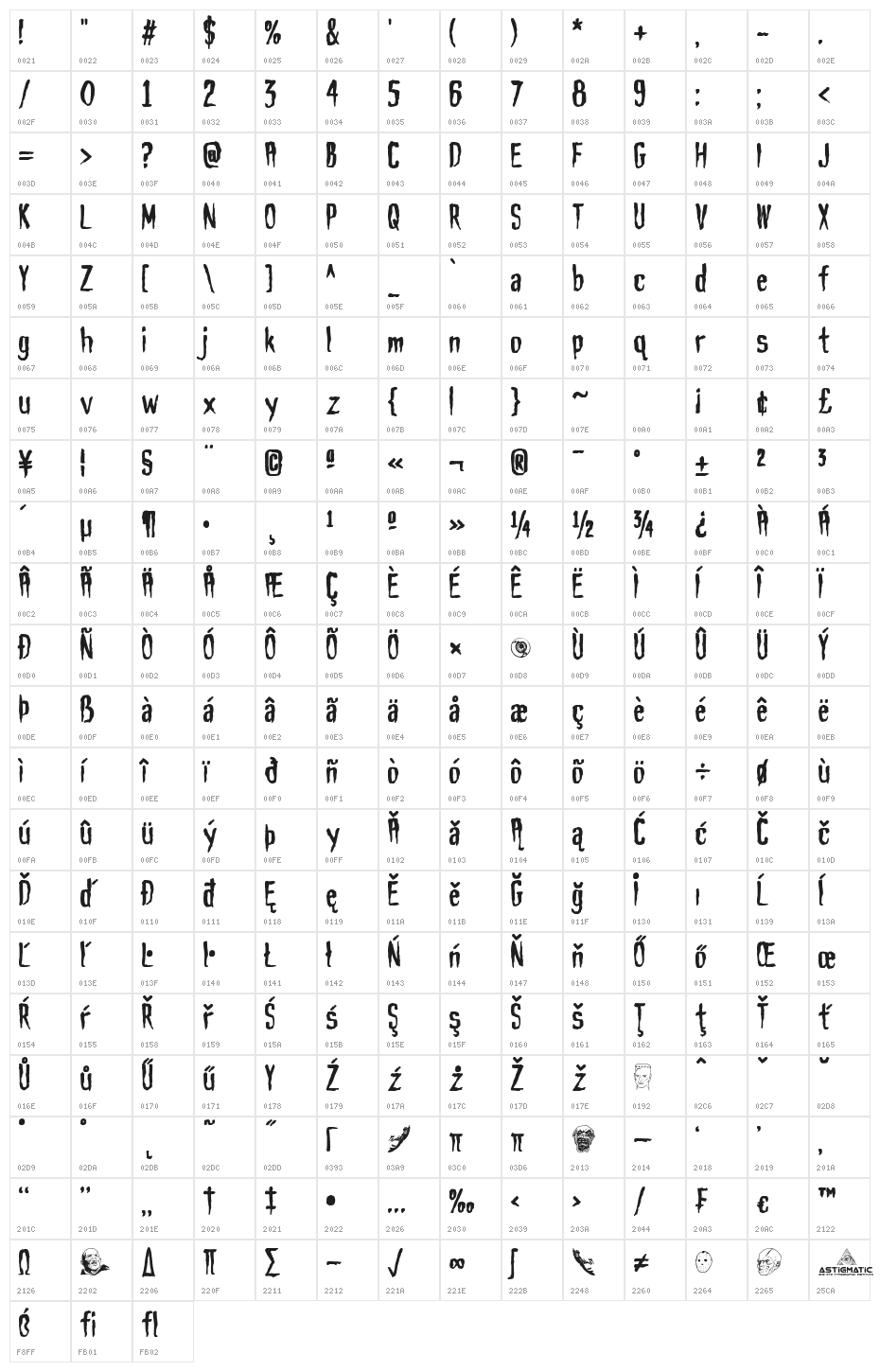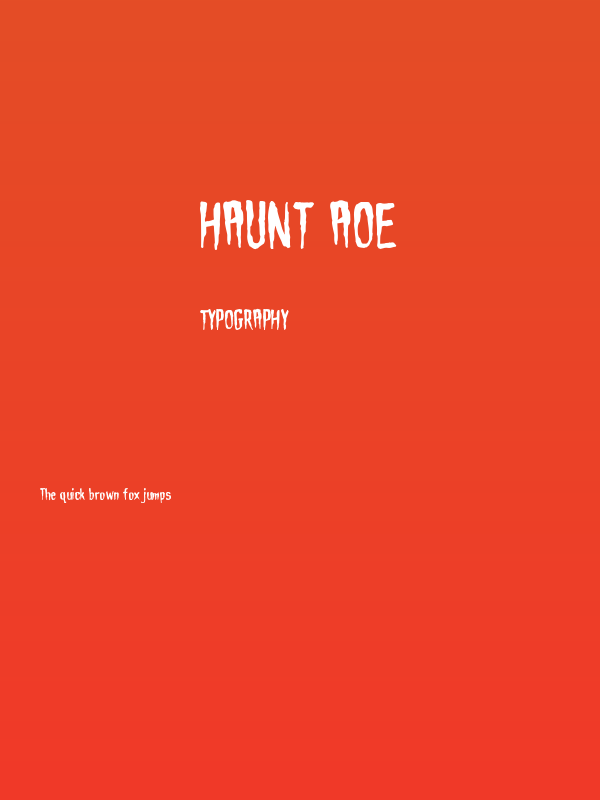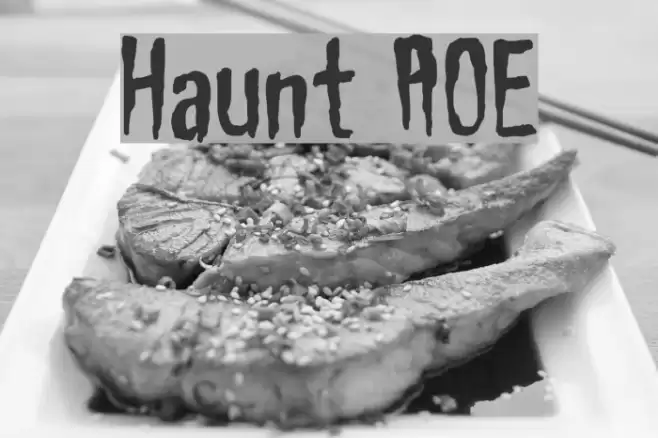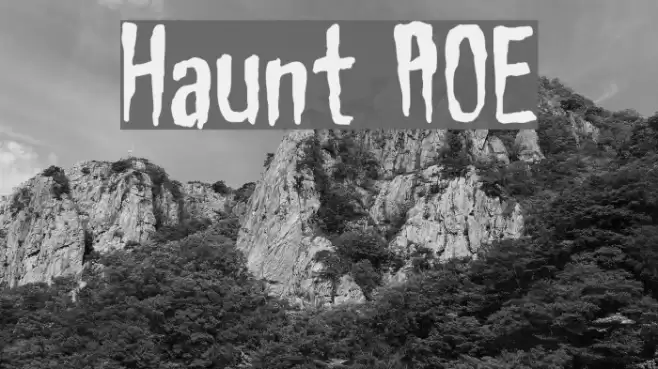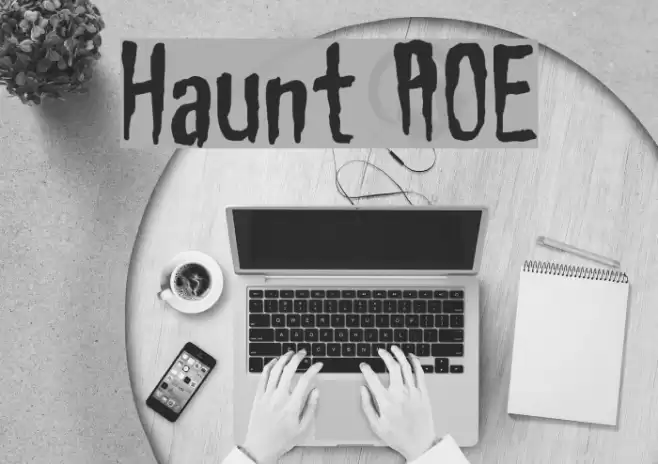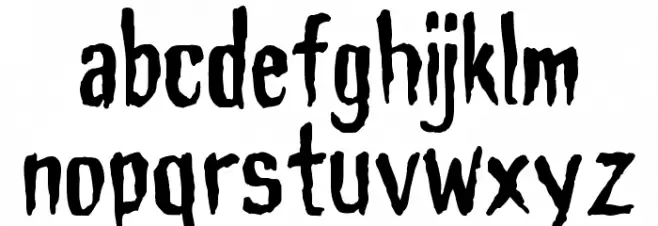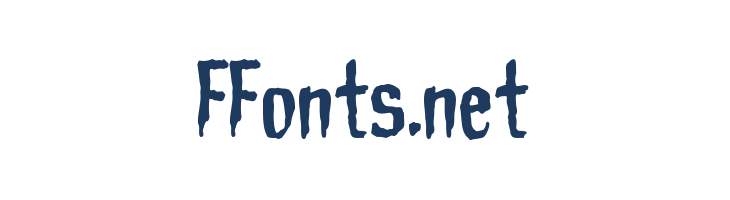
Haunt AOE Font
| Caso d'uso | Headlines, Posters, Themed Events |
| Progetti proposti | Ideal for Halloween invitations, horror movie posters, haunted house flyers, and spooky-themed merchandise. |